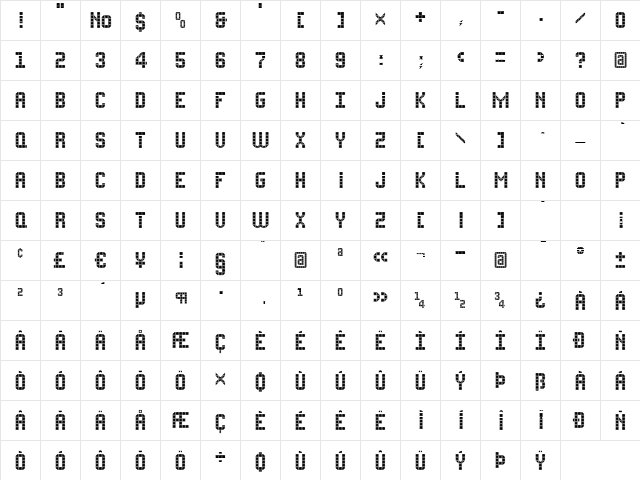
FlatPack Regular
Design Context for FlatPack Typeface
FlatPack is a composed and adaptable typeface that performs quietly and consistently across a wide range of design contexts.